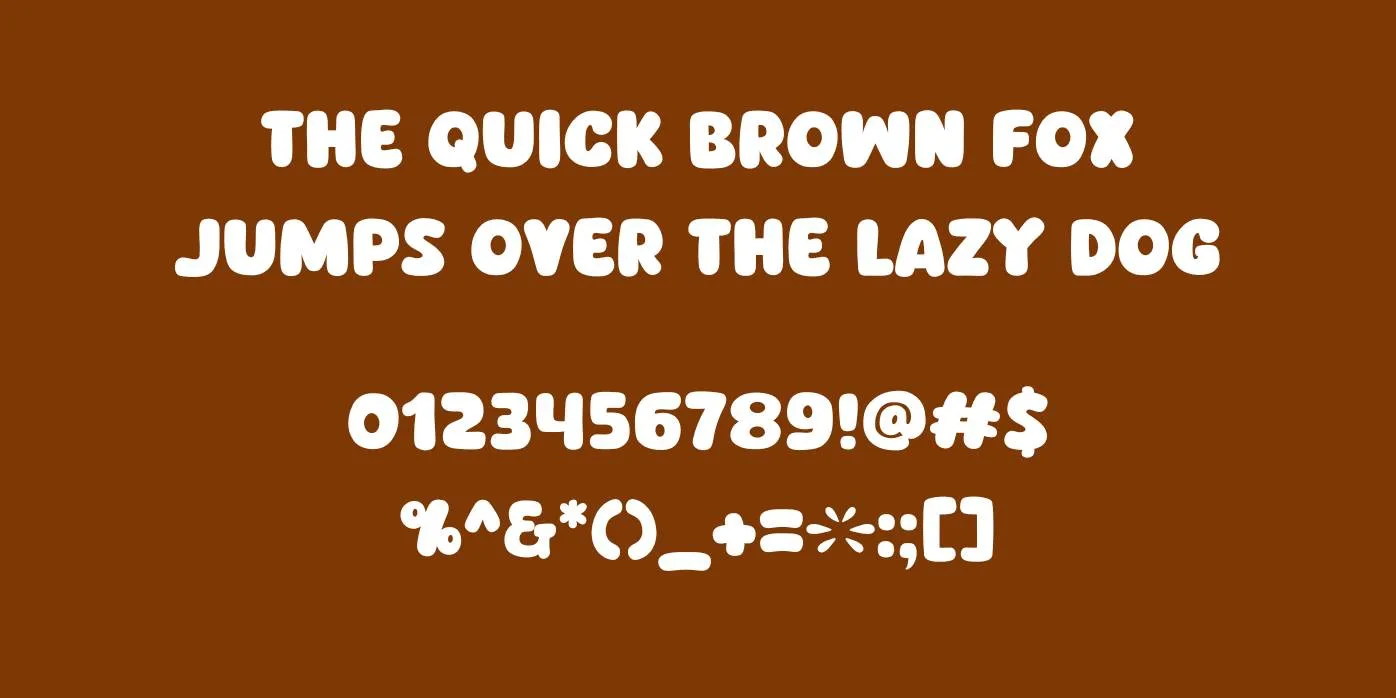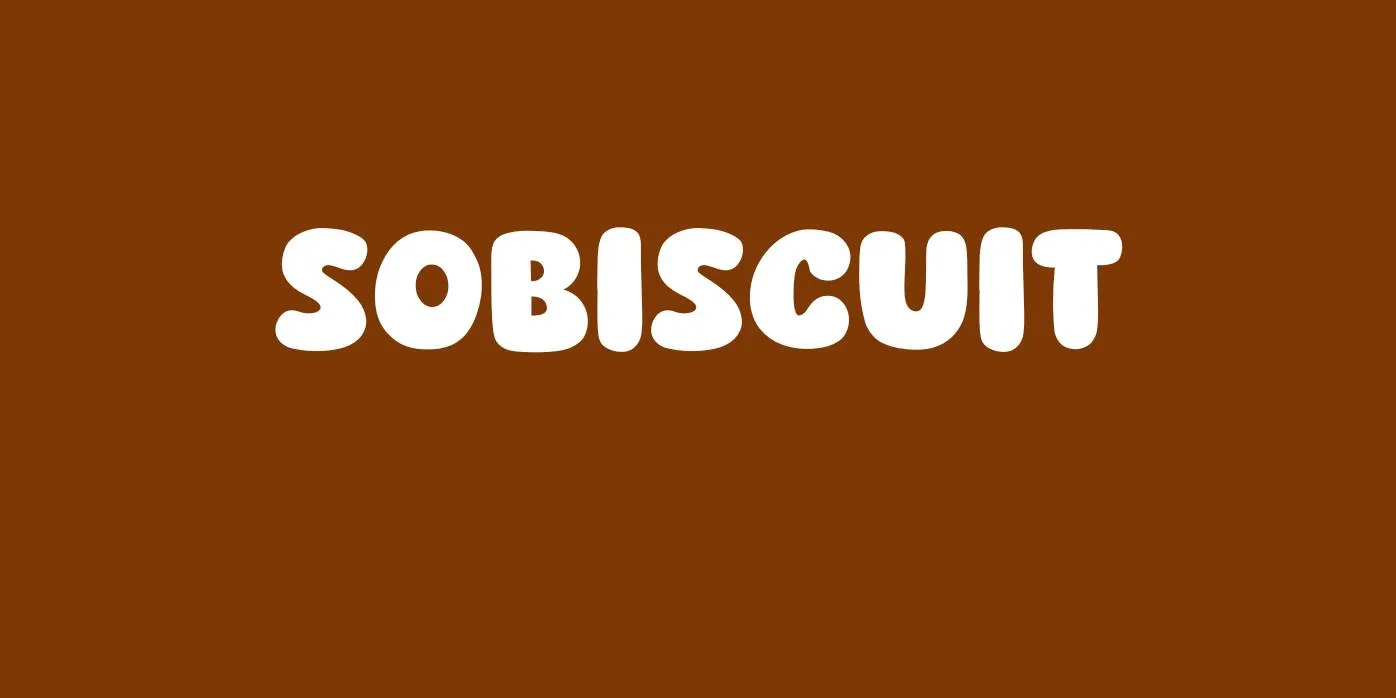
Sobiscuit Font
You are going to read about the famous type of font. Sobiscuit Font is a cartoon type of font. Khurasan is the designer of this texture. The characters of this texture are amazing and stunning. They are bold, fantastic, readable, and classic.